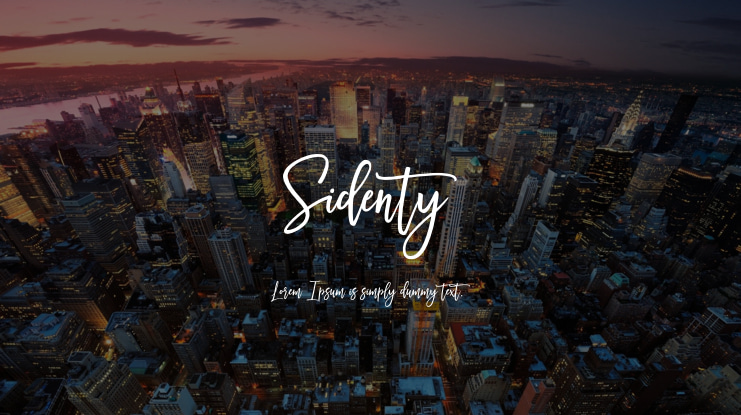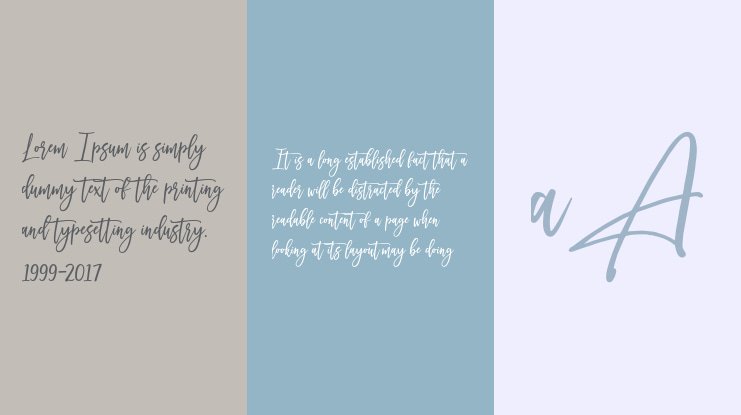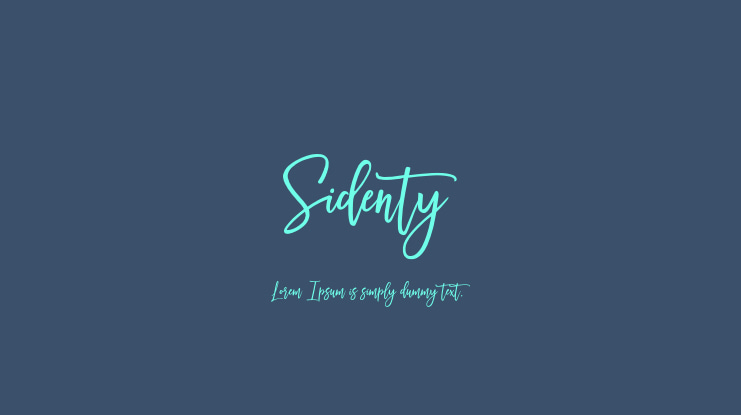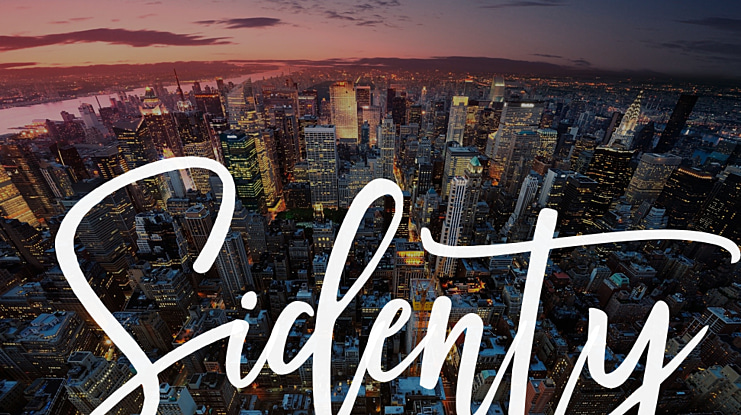
Welcome to Sidenty, a script font that effortlessly combines fun and elegance. This font is bursting with energy, allowing you to create stunning hand-made typography in an instant. It is perfect for watercolor designs or any project that requires bold and brushed letters. Whether you need it for a novel title, apparel, invitations, quotes, stationery design, branding, logos, greeting cards, t-shirts, packaging design, posters, and more, Sidenty has got you covered.
One of the standout features of Sidenty is its complete set of lowercase alternates, which adds an extra level of authenticity to your creations.
1. Sidenty font - This handwritten script font includes both upper and lowercase characters, numerals, alternates, and a wide range of punctuation. The font is available in both TTF and OTF formats. I recommend installing the TTF files, unless the OTF format is specifically needed. Both formats offer the same functionality.